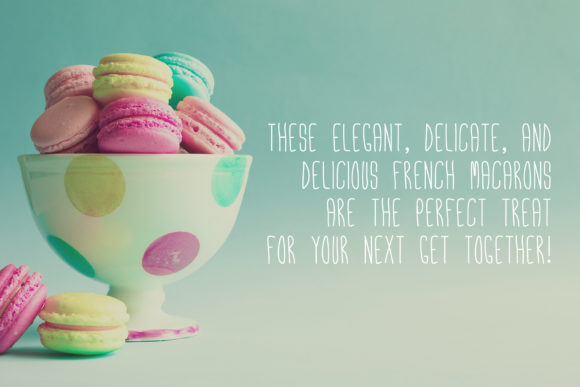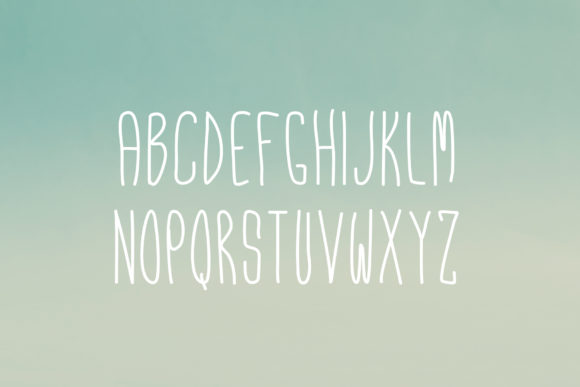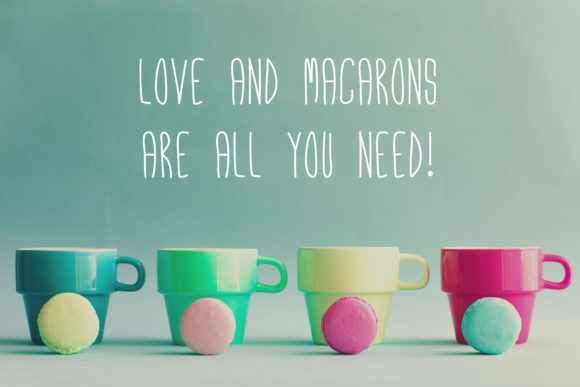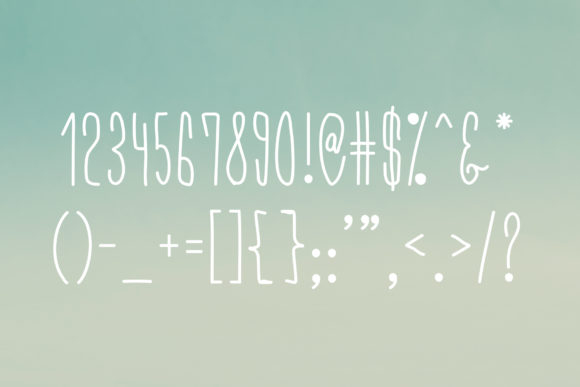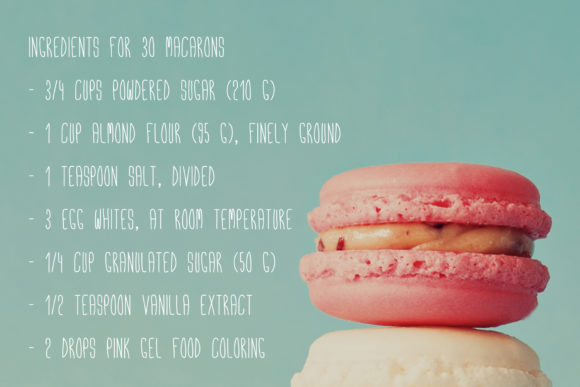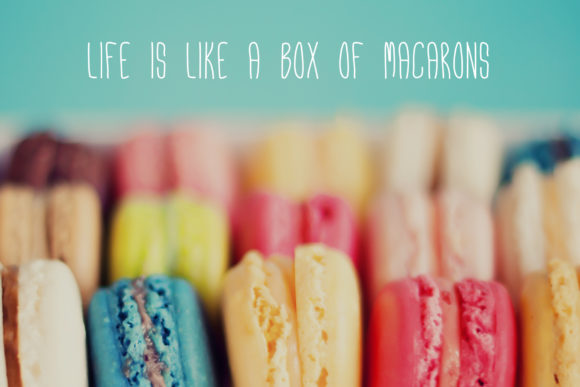
The Funky Font: A Playful Touch for Your Designs
I’ll never forget the time I was working on a project for a children’s party invitation. I had the design concept all sorted out, but I was stuck on finding the perfect font. I wanted something that was playful, yet legible; fun, yet not too over-the-top. That’s when I stumbled upon the Funky font, and it was love at first sight! 💕
Funky is an adorable handwritten font that’s hand-drawn, tall, light, and thin. It has a slightly bubbly personality while still being completely legible, neat, decorative, and distinct. It’s perfect for adding a playful touch to your work, and I’m excited to share my experience with you.
- ✨ The font’s playful and bubbly personality is perfect for designs that need a fun touch.
- ✅ It’s incredibly legible, even at smaller font sizes.
- ✅ The font is versatile and can be used for a variety of design projects, from invitations to social media graphics.
- ✅ It’s a great alternative to more traditional fonts, adding a unique touch to your designs.
While Funky is an amazing font, there are a few things to keep in mind:
- ⚠️ The font’s tall and thin design may not be suitable for designs that require a bold or heavy font.
- 🤔 Some characters, like the lowercase ‘q’ and ‘p’, can be a bit tricky to read if you’re not used to the font.
The Designer Inspiration Behind Funky
Funky was designed with the intention of creating a font that’s both playful and legible. The designer wanted to create a font that’s perfect for designs that need a fun and bubbly touch, without sacrificing readability. The result is a font that’s both unique and versatile.
Q: What is the best use for the Funky font?
A: Funky is perfect for designs that need a playful and fun touch, such as invitations, social media graphics, and children’s party materials.